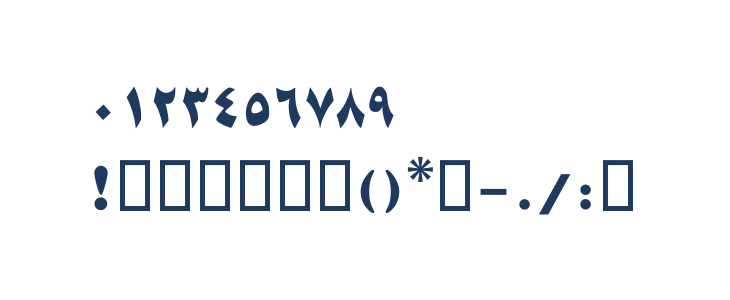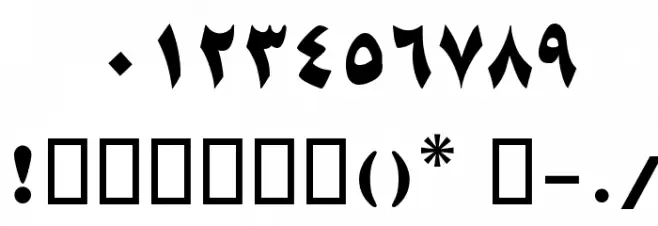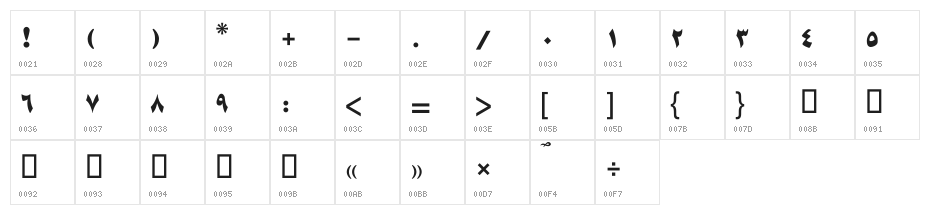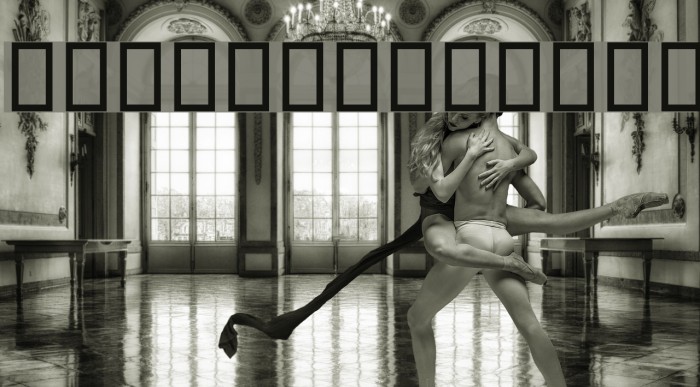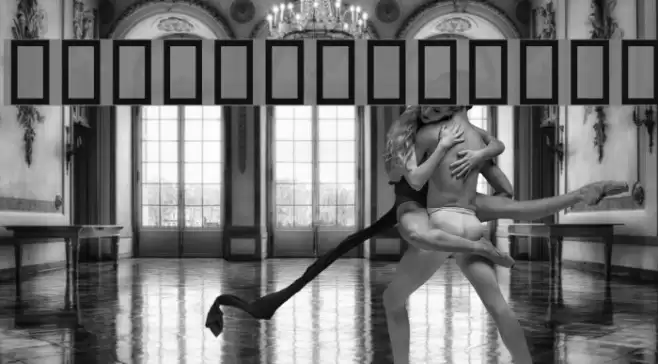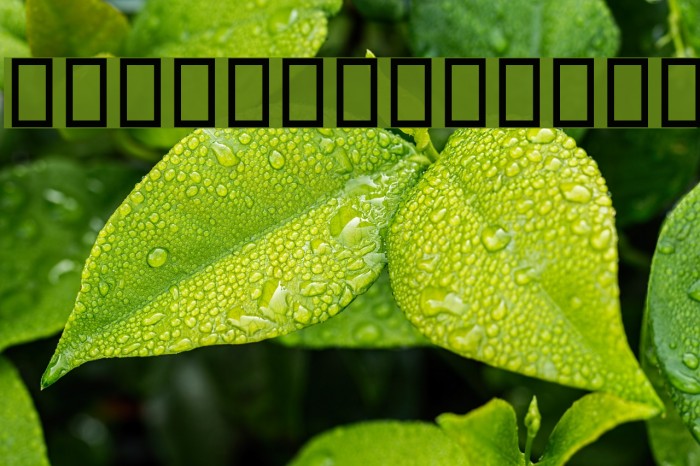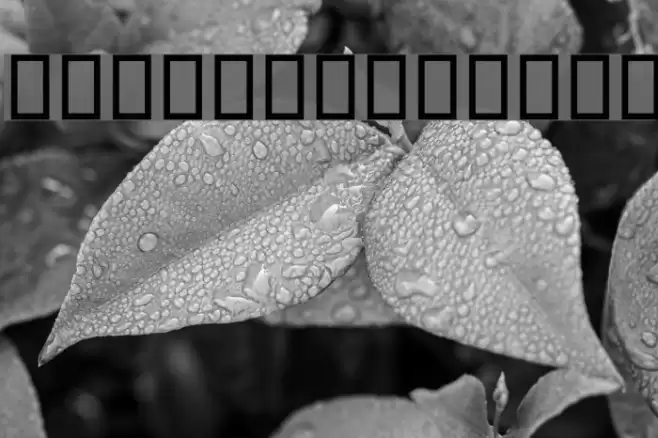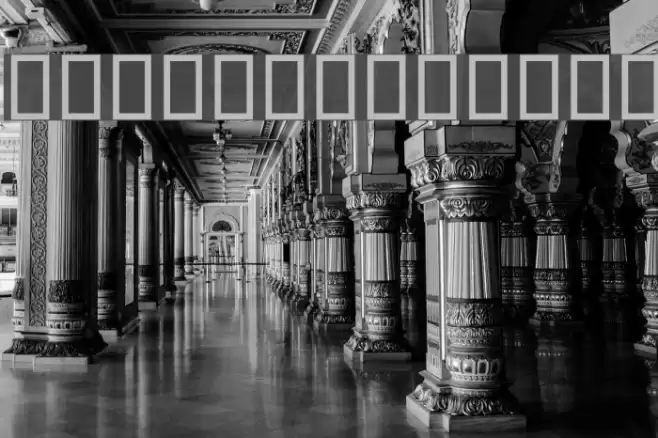
Mehraab Font
Mehraab Description
This font features a unique and artistic design with a strong emphasis on geometric shapes and bold lines. The characters are crafted with a distinct style that combines traditional elements with a modern twist, making it stand out in any design project. The numerals are particularly stylized, adding a touch of elegance and sophistication. The special characters maintain the overall aesthetic, ensuring consistency across all text elements. This font is ideal for projects that require a distinctive and eye-catching typeface.
| Proposed Projects | Ideal for branding, posters, and artistic projects that require a unique and bold typeface. |